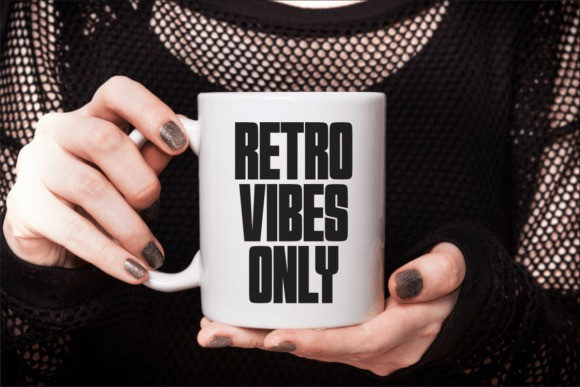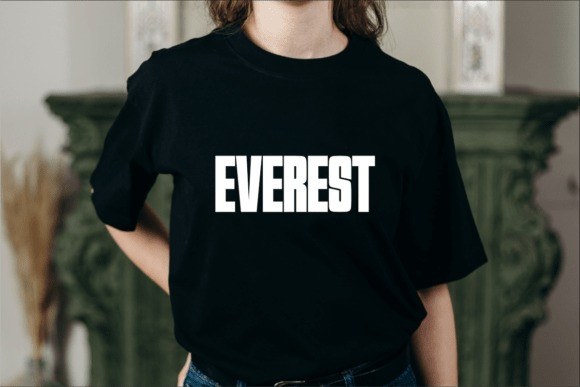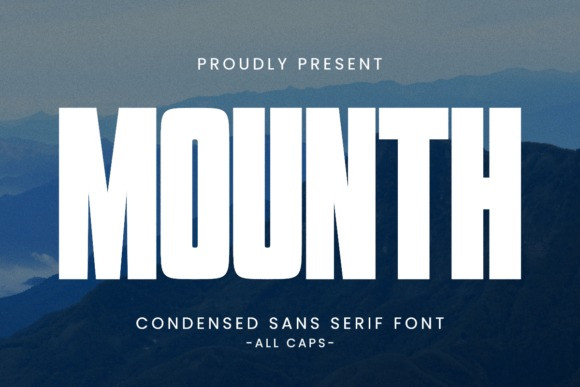
Mounth Font
Mounth Font is a bold, condensed sans-serif display font designed in all caps style. With its tall, strong, and powerful letterforms, this typeface is perfect for impactful designs such as posters, headlines, sports branding, outdoor advertisements, logos, and social media graphics.
Its clean and modern look makes it versatile for both professional and creative projects that require attention-grabbing typography.